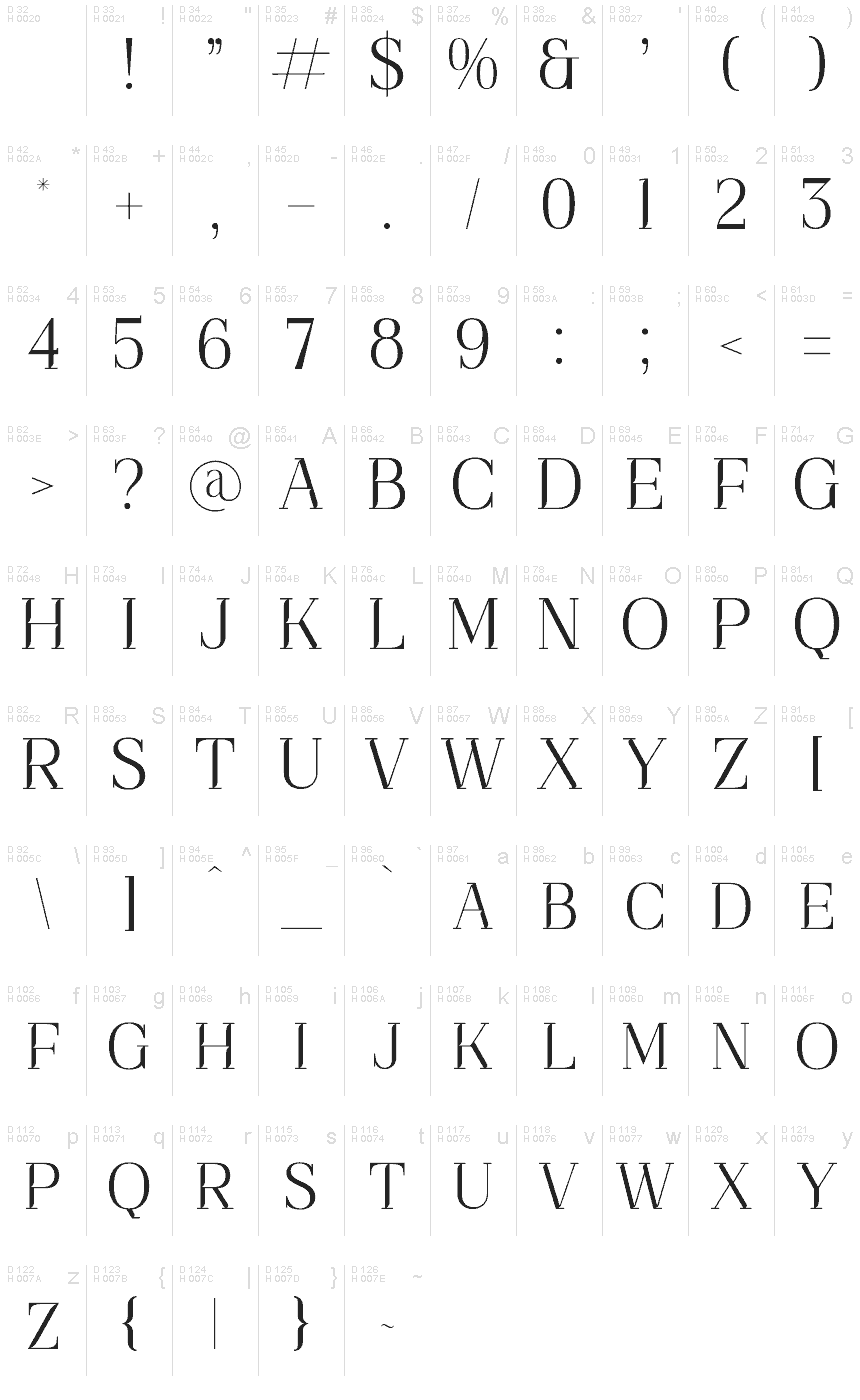
Cremtin
Cremtin font, designed by Storytype Studio, is a harmonious blend of classic and modern elements, presenting a sophisticated serif design. With its elegant and refined appeal, this font holds a traditional yet contemporary essence. Its stylish formal tone makes it suitable for projects that require an air of sophistication.